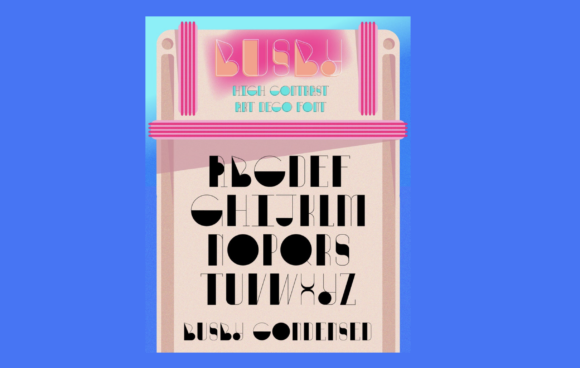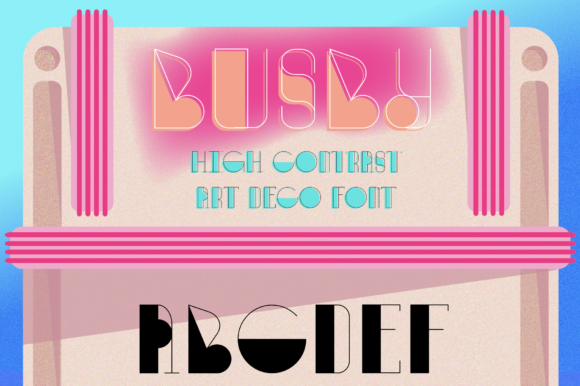
Introducing Busby Condensed Font: The Ultimate Retro Display Font
Are you tired of using the same old fonts in your designs? Look no further! Busby Condensed Font is here to revolutionize your creative projects with its unique, retro, and cool vibe. This display font is perfect for designers and crafters who want to add a touch of nostalgia and personality to their work.
What Makes Busby Condensed Font So Special?
Busby is a one-of-a-kind font that boasts a distinctive style that’s sure to make your designs stand out. Its condensed structure and retro flair make it an excellent choice for a wide range of projects, from t-shirts and sportswear to logos, advertisements, and clothing. With Busby, you can effortlessly transform any design project into a visually stunning masterpiece that grabs attention.
Busby Condensed Font is a versatile font that’s suitable for various design applications. Whether you’re a professional designer or a crafter, this font is perfect for:
- T-shirts and apparel design: Add a retro touch to your t-shirt designs and make them stand out.
- Sportswear: Create eye-catching sportswear designs that exude a cool, sporty vibe.
- Logo design: Use Busby to create unique and memorable logos that reflect your brand’s personality.
- Advertisements: Make your ads pop with this attention-grabbing font.
- Clothing and fashion: Add a touch of elegance and sophistication to your clothing and fashion designs.
Key Features of Busby Condensed Font
Here are some key features that make Busby Condensed Font a must-have for designers and crafters:
- Unique and retro design: Busby boasts a distinctive retro style that’s sure to turn heads.
- Condensed structure: The font’s condensed structure makes it perfect for designs where space is limited.
- Highly legible: Despite its condensed structure, Busby remains highly legible, even at small sizes.
- Versatile: Use Busby for a wide range of design projects, from digital to print.
Why Choose Busby Condensed Font?
With so many fonts available, why choose Busby Condensed Font? Here are a few reasons:
- Stand out from the crowd: Busby’s unique design ensures that your designs will stand out from the crowd.
- Save time: With Busby, you can create stunning designs quickly and easily.
In conclusion, Busby Condensed Font is a game-changer for designers and crafters who want to add a touch of personality and nostalgia to their work. With its unique design, condensed structure, and versatility, Busby is the perfect font for a wide range of design projects. So why settle for ordinary fonts when you can have a font that stands out? Choose Busby Condensed Font today and elevate your designs to new heights!